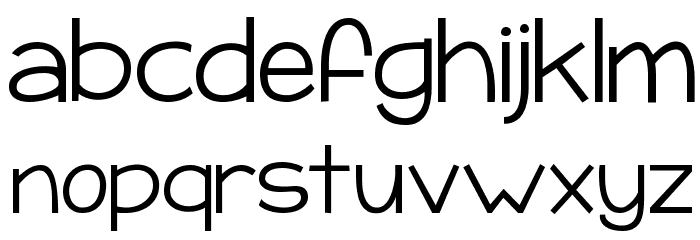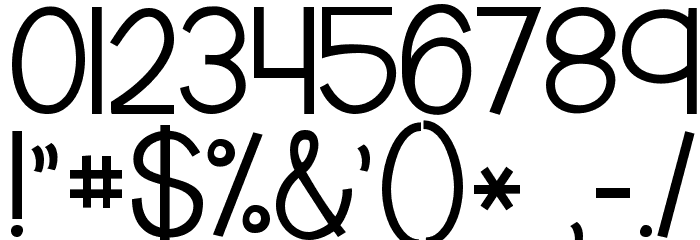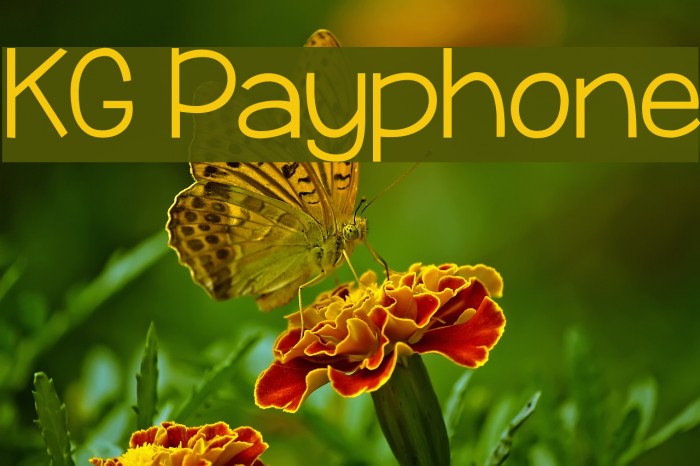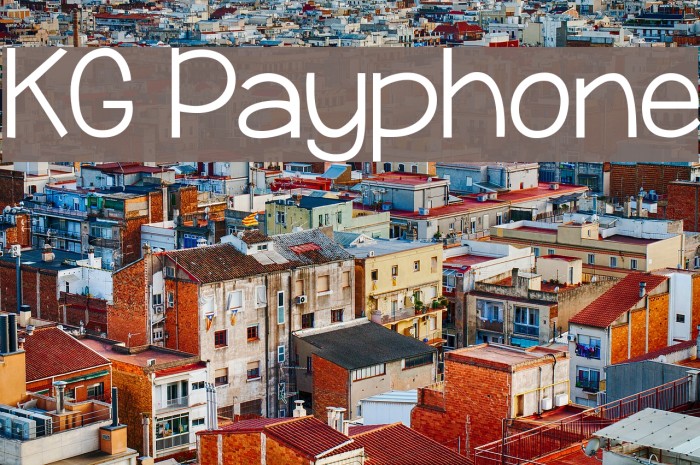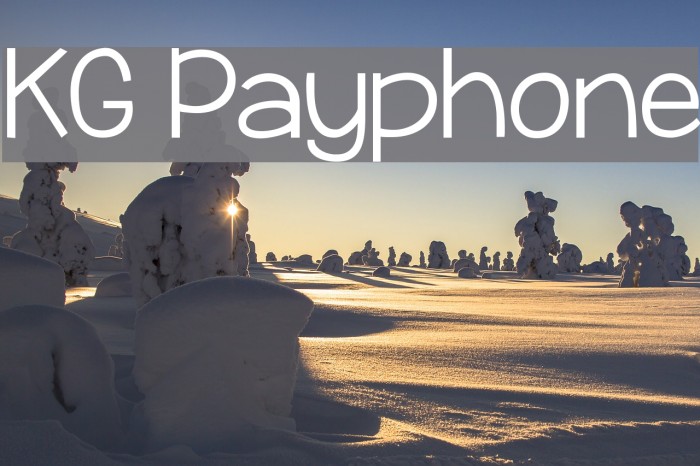
KG Payphone Font
This font features a clean, geometric design with rounded edges, giving it a modern and approachable feel. The uppercase letters are uniform in height, while the lowercase letters maintain a consistent x-height, enhancing readability. The numerals are distinct and align well with the overall style, making them easy to distinguish. Special characters are well-integrated, maintaining the font's cohesive appearance. The overall design is sleek and minimalistic, suitable for a variety of applications where clarity and modernity are desired.
A modern, geometric font with rounded edges and a clean, minimalistic style.